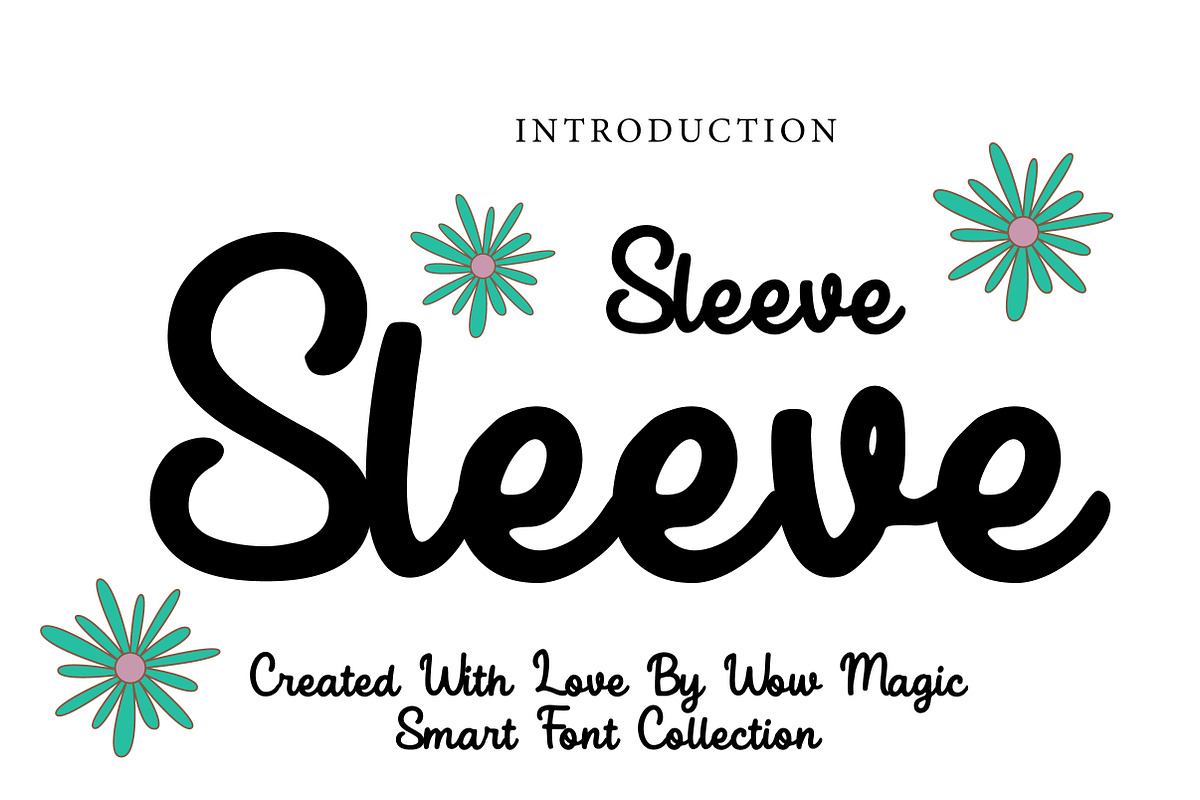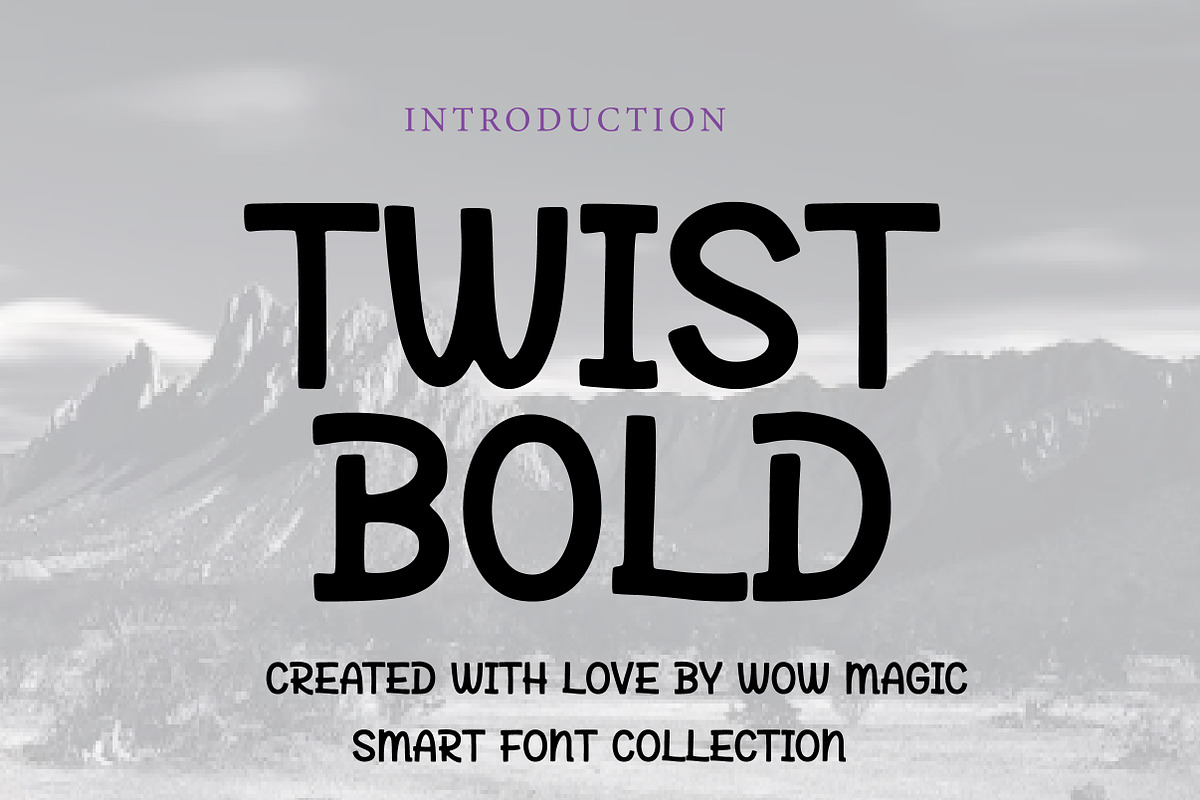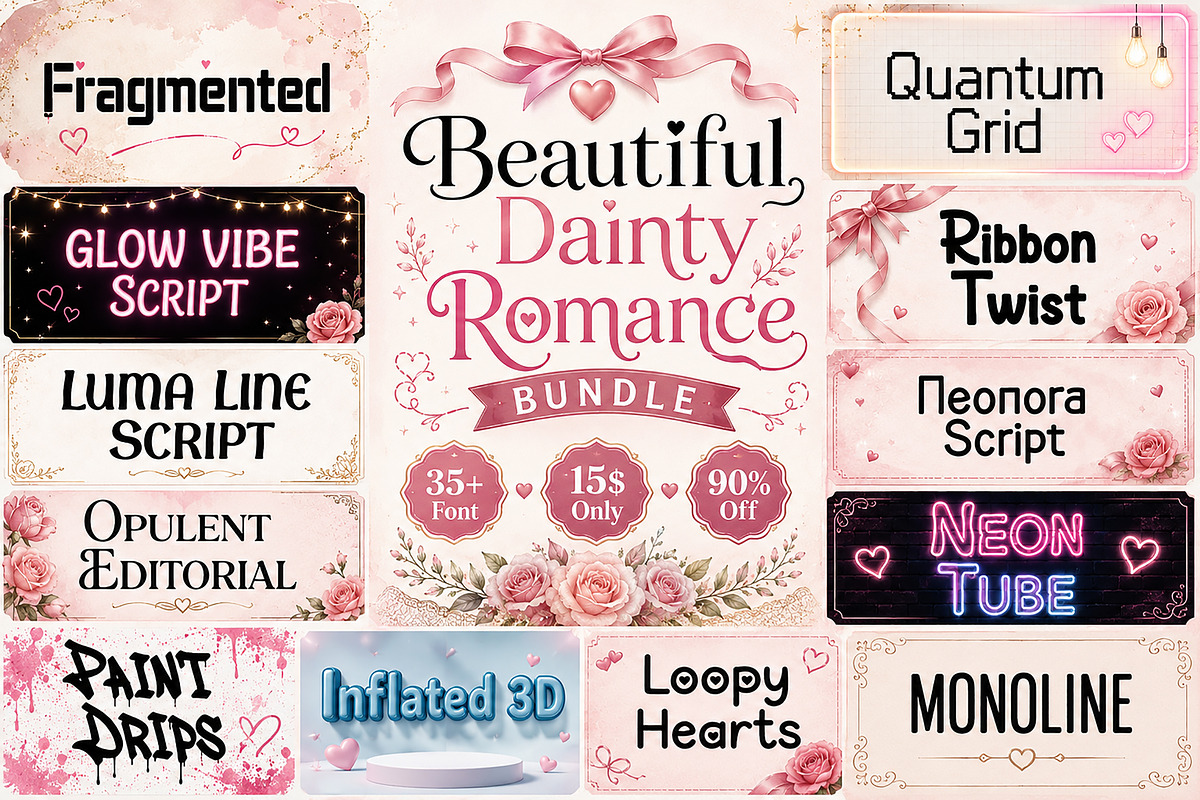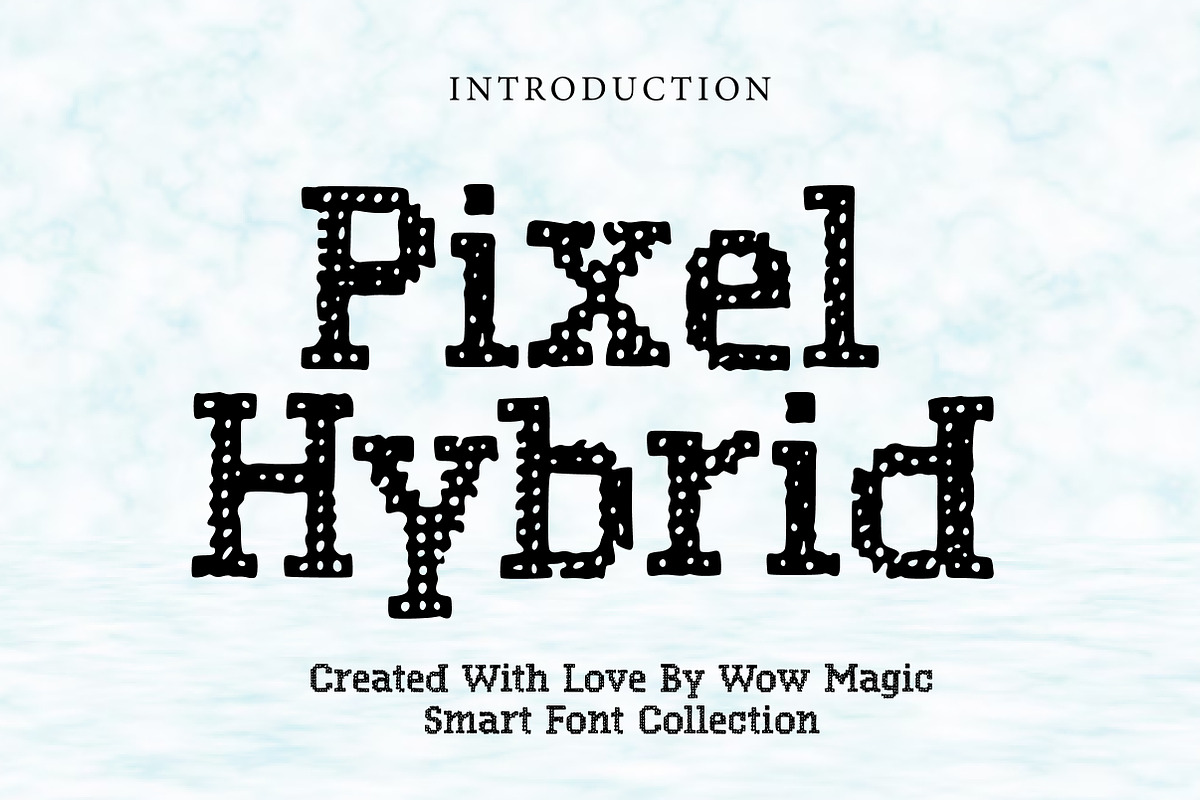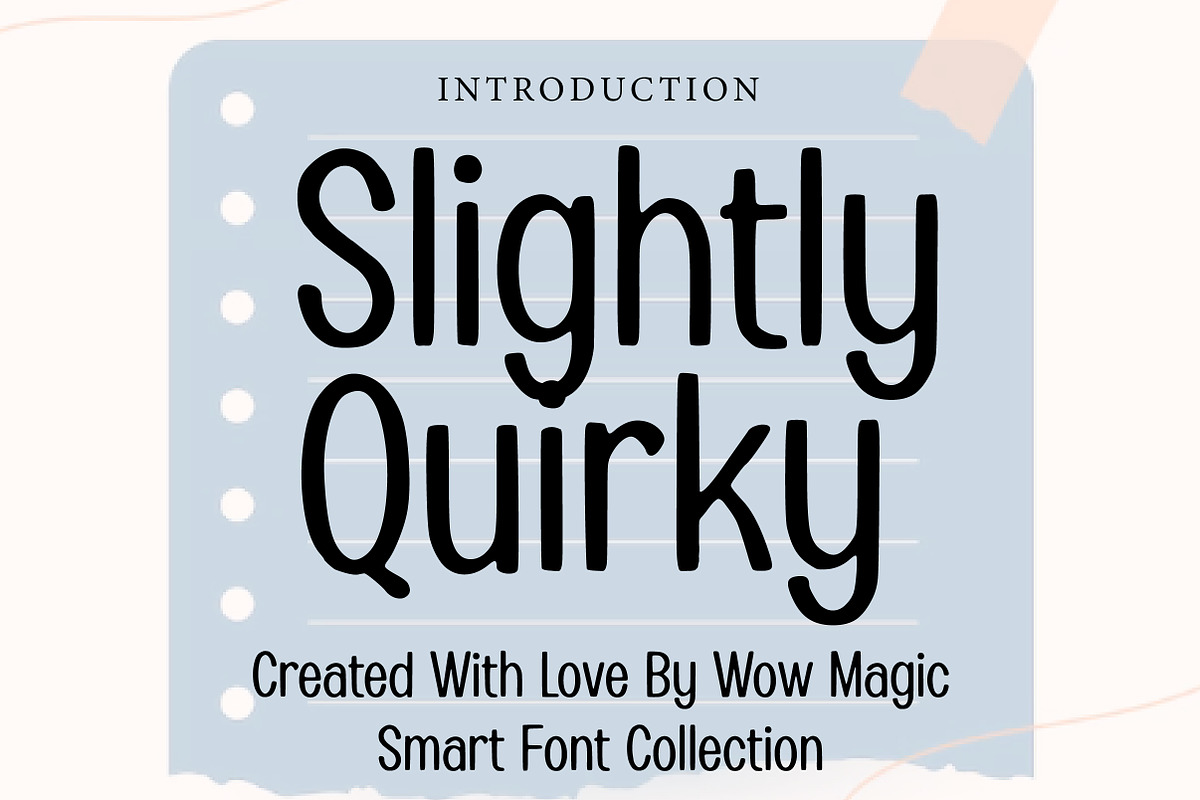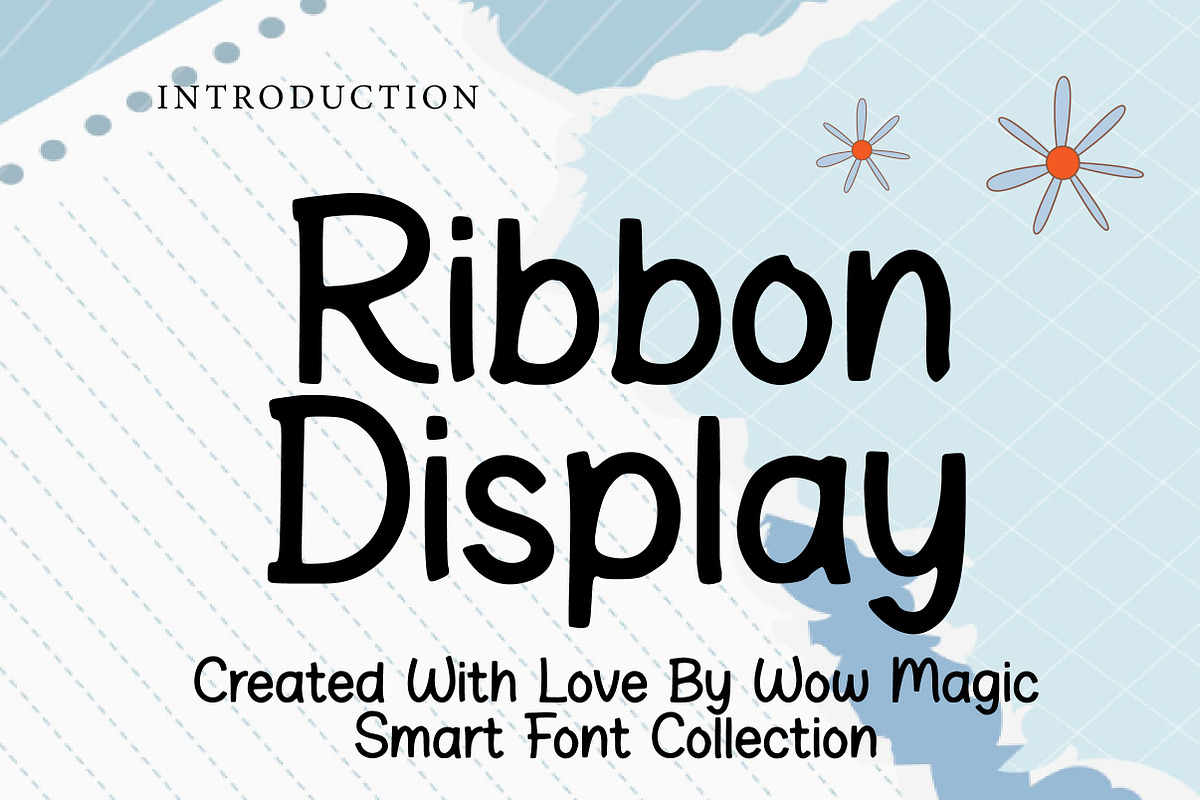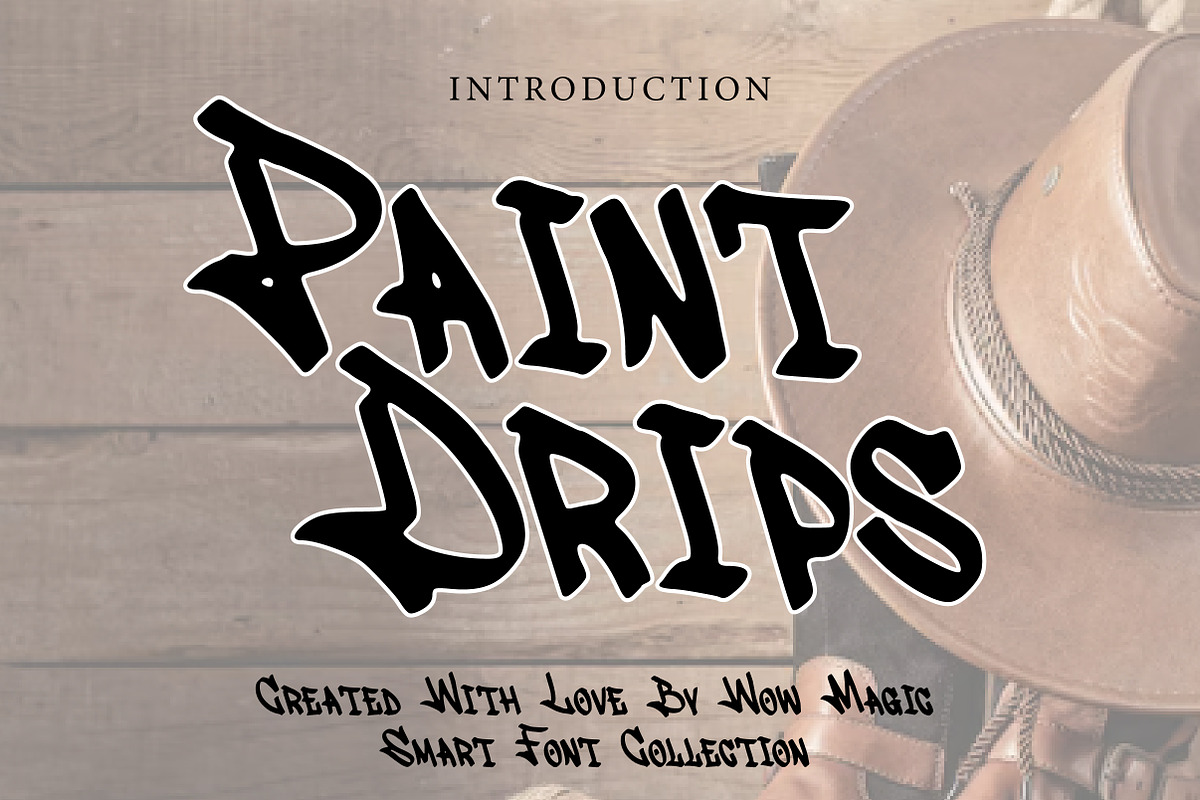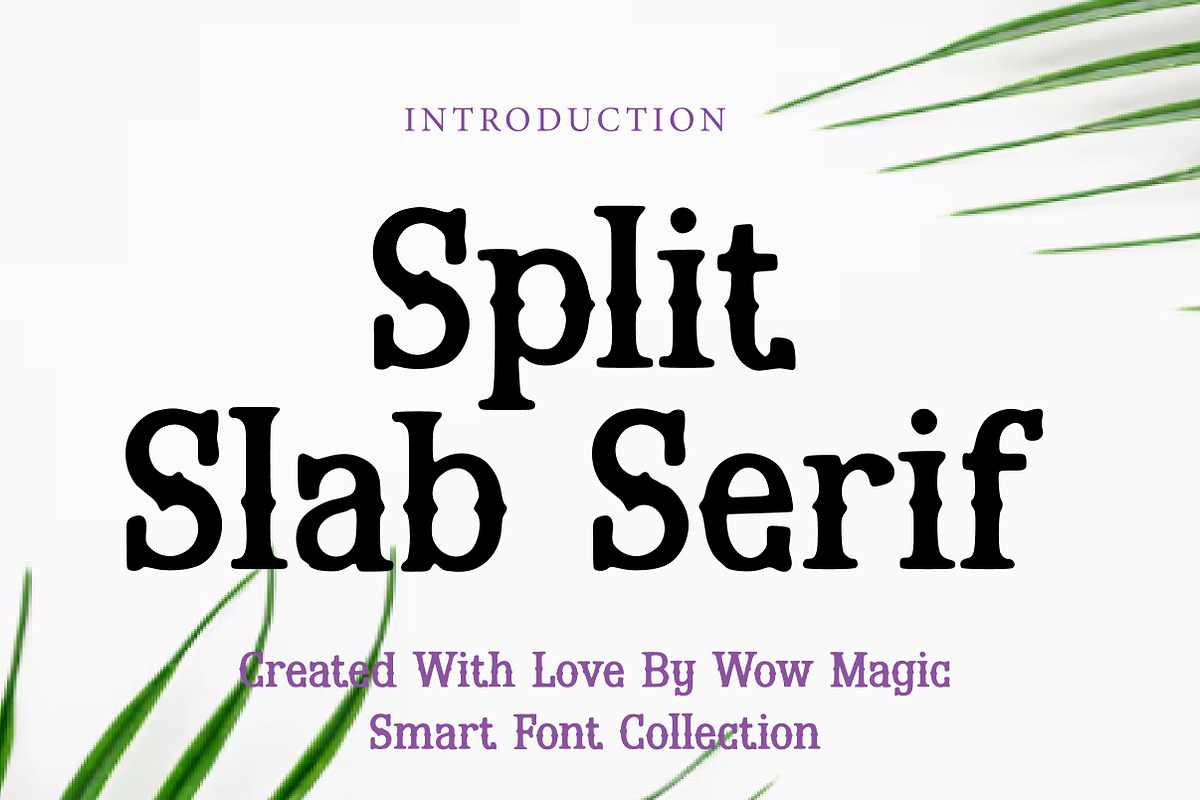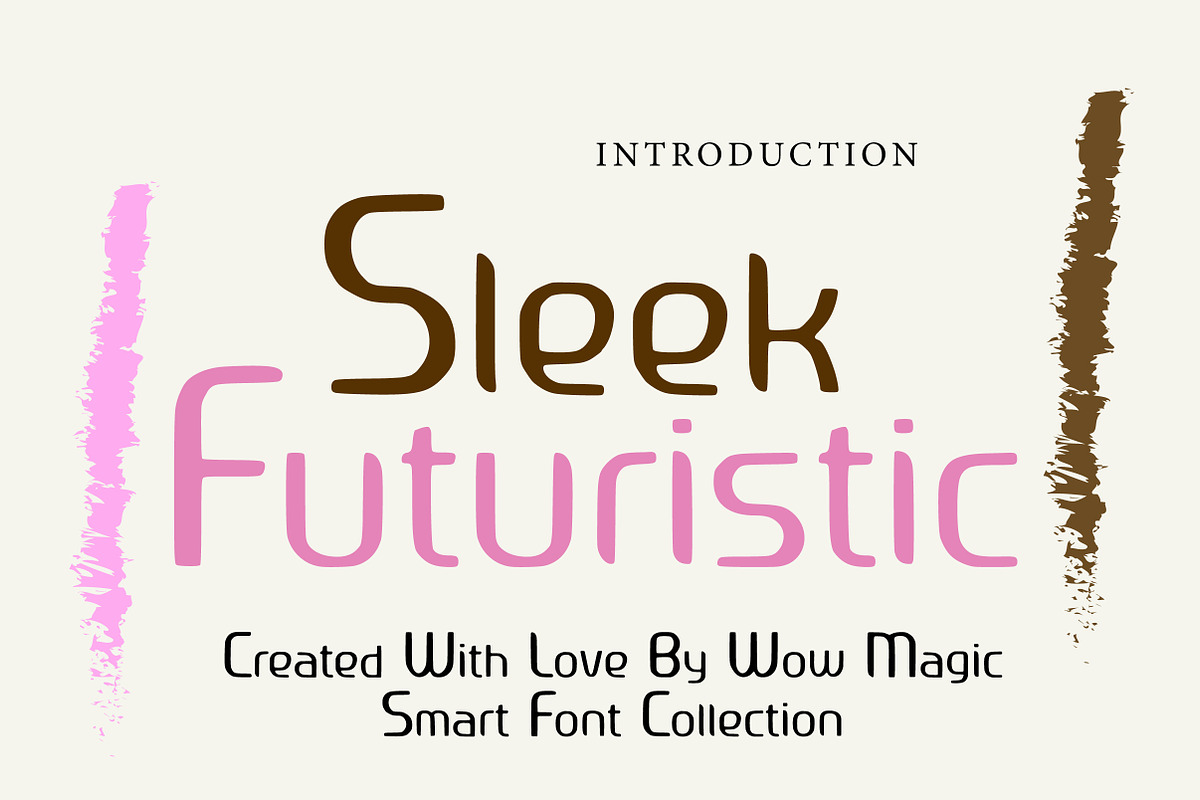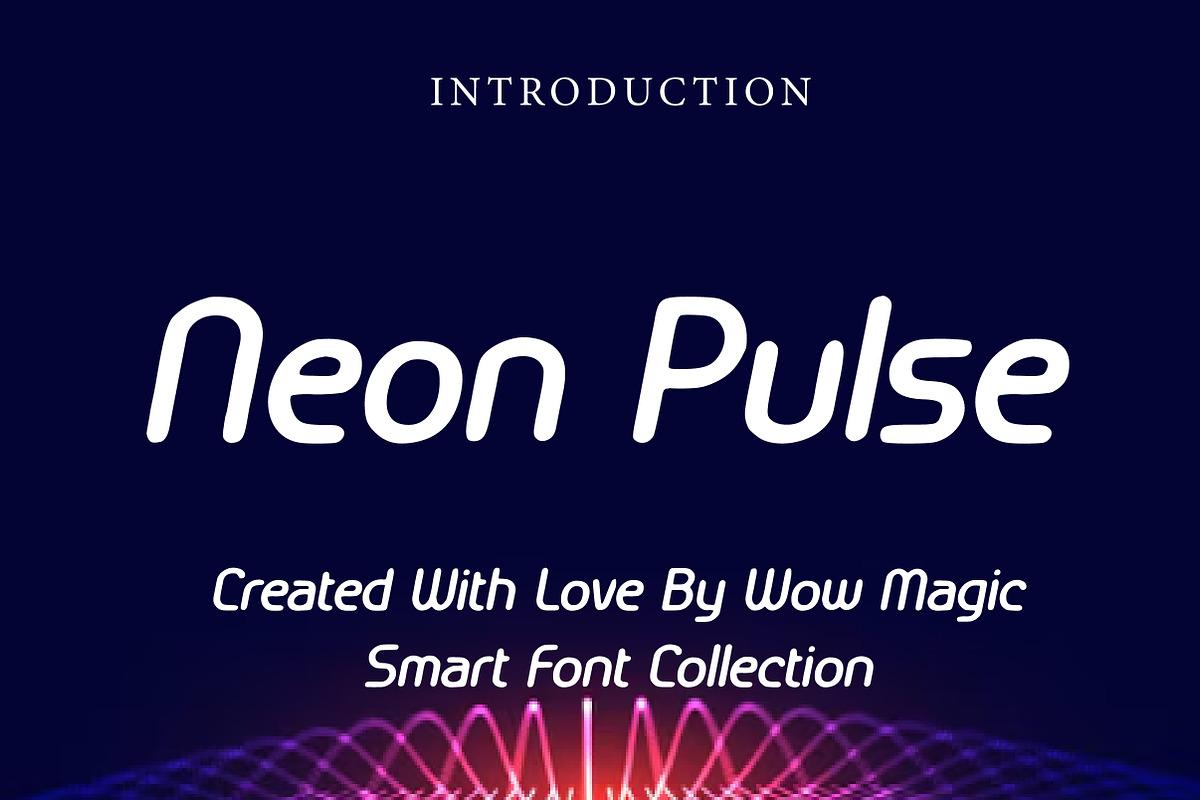
Beautiful Dainty Romance Bundle
Introducing Beautiful Dainty Romance Bundle — a stunning collection of 35+ premium fonts carefully crafted for designers, crafters, entrepreneurs, and creatives who love elegant, romantic, playful, and trendy typography.
This versatile font bundle includes a beautiful mix of script, display, decorative, editorial, monoline, neon, graffiti, pixel, and modern styles, making it perfect for a wide range of creative projects.
Whether you're creating wedding invitations, branding, social media graphics, Cricut projects, t-shirts, packaging, logos, book covers, posters, greeting cards, stickers, or digital products, this bundle gives you endless creative possibilities.
✔ Script Fonts
✔ Monoline Fonts
✔ Editorial Fonts
✔ Decorative Display Fonts
✔ Neon Style Fonts
✔ Graffiti Fonts
✔ Pixel Fonts
✔ Modern Display Fonts